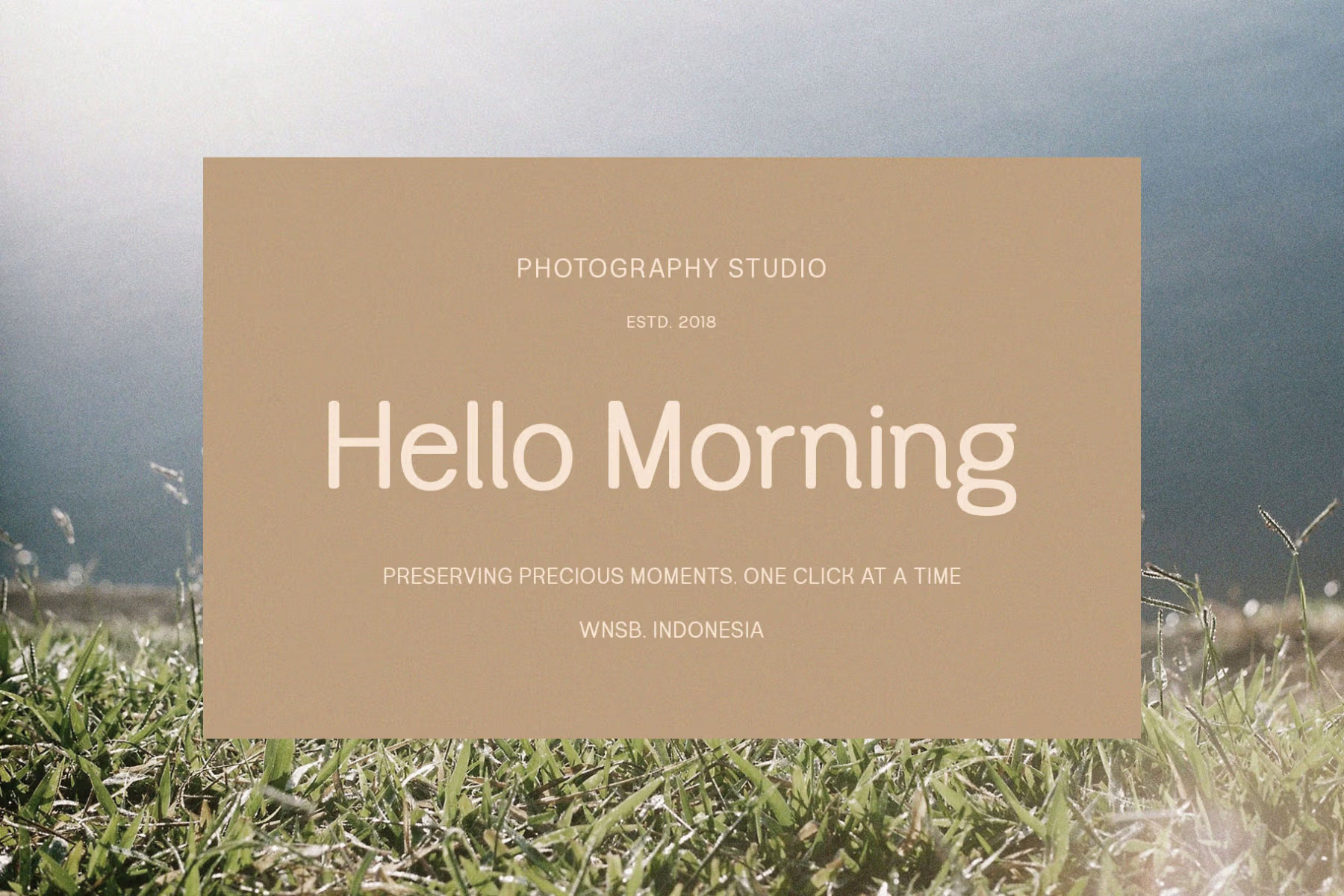
Dropline Font
Dropline is a modern sans serif typeface, perfect for headlines, logos, branding, magazines, product packaging, invitations, and more. With its clean lines and smooth curves, Dropline brings a touch of elegance and sophistication to any design project.